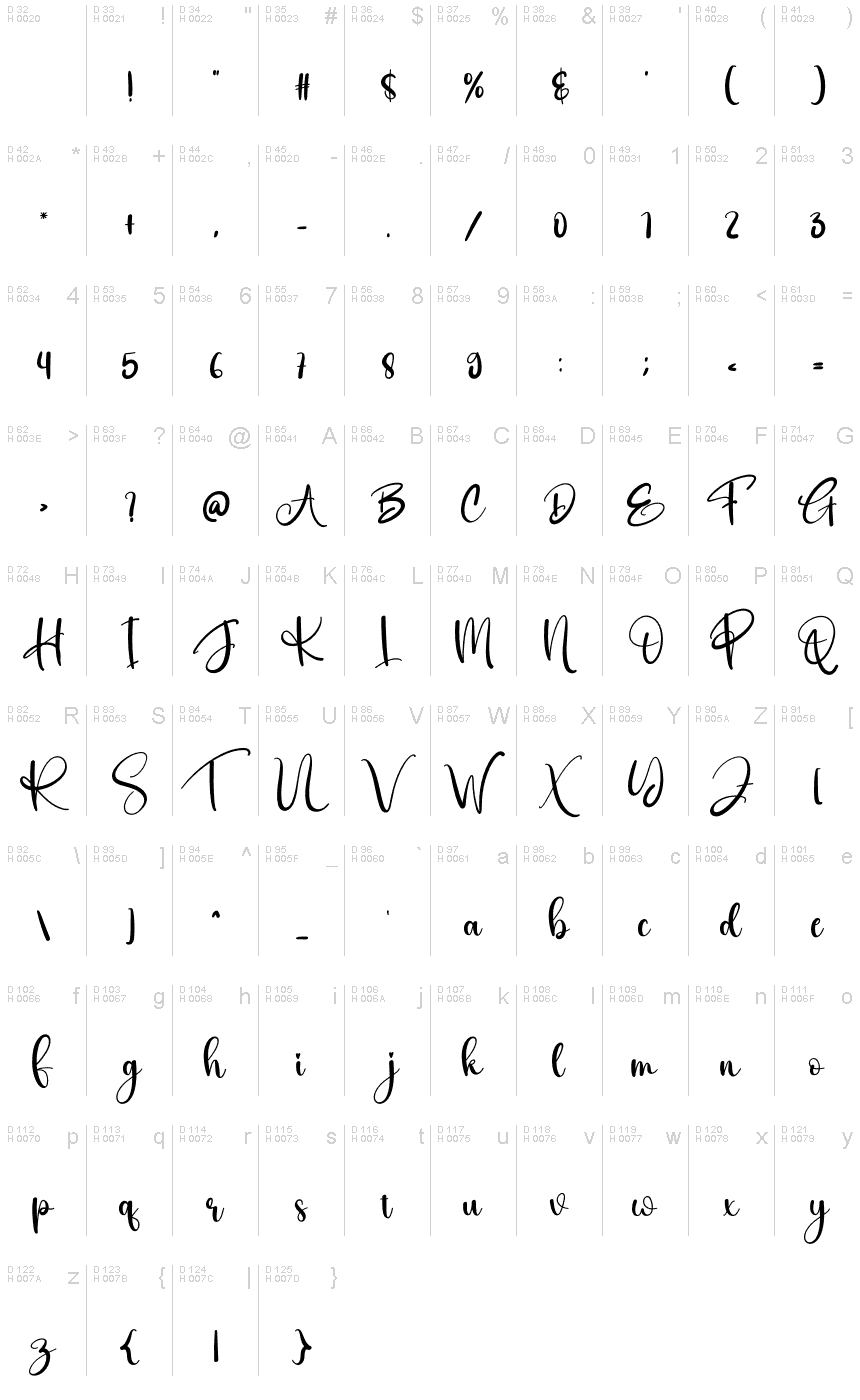
Girly
Girly, a stunning calligraphy font by scratchones, adds an elegant touch to any project. With its semi-light weight, this font exudes grace and sophistication. Perfect for wedding invitations, feminine branding materials, and boutique logos, Girly brings a touch of femininity to your designs. Its flowing strokes and delicate curves create a sense of romance and charm. Whether you're designing a fashion magazine or creating personalized stationery, Girly is the ideal choice for those seeking a graceful and refined font style that leaves a lasting impression.
the latest style letters are perfect for wall displays, wedding invitations, social media post logos, advertisements, product packaging, product designs, labels, photography, watermarks, invitations, stationery, and any project that requires taste handwriting.